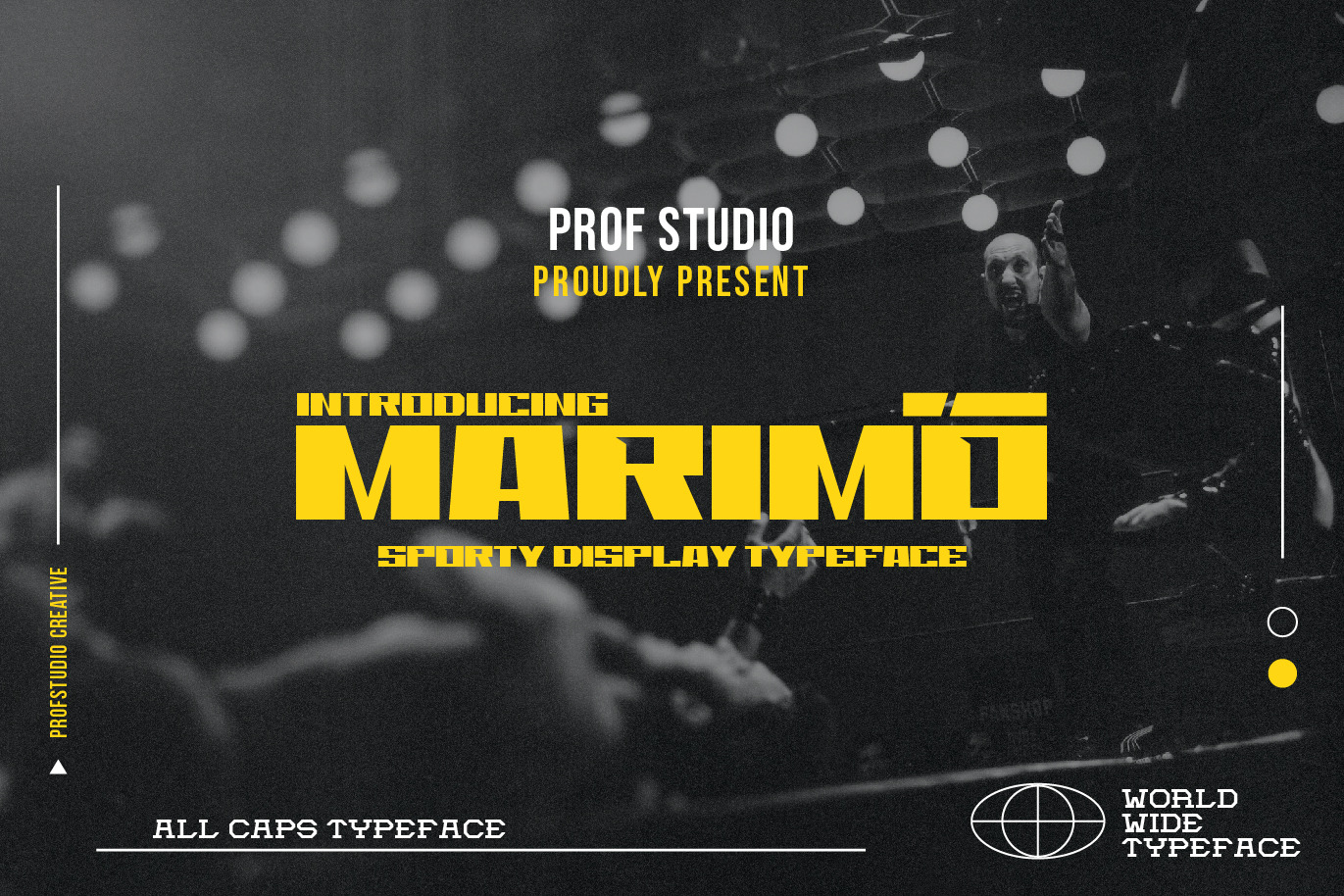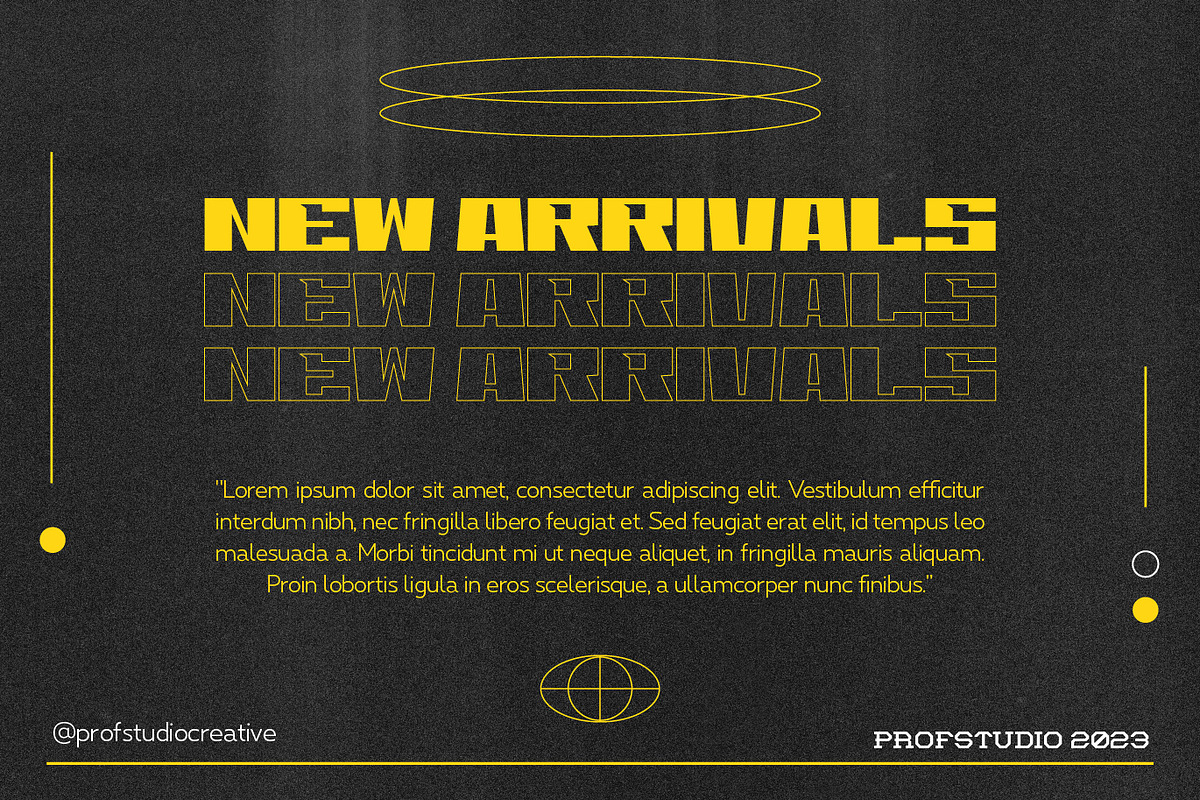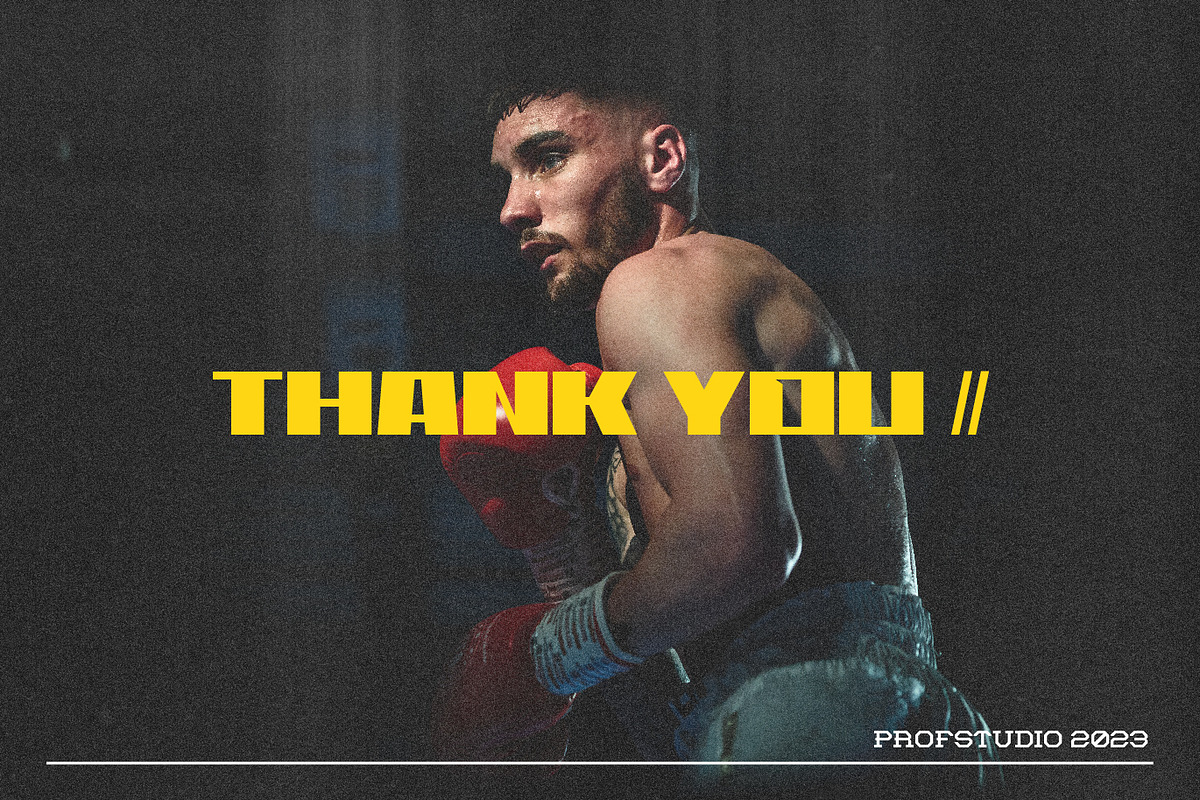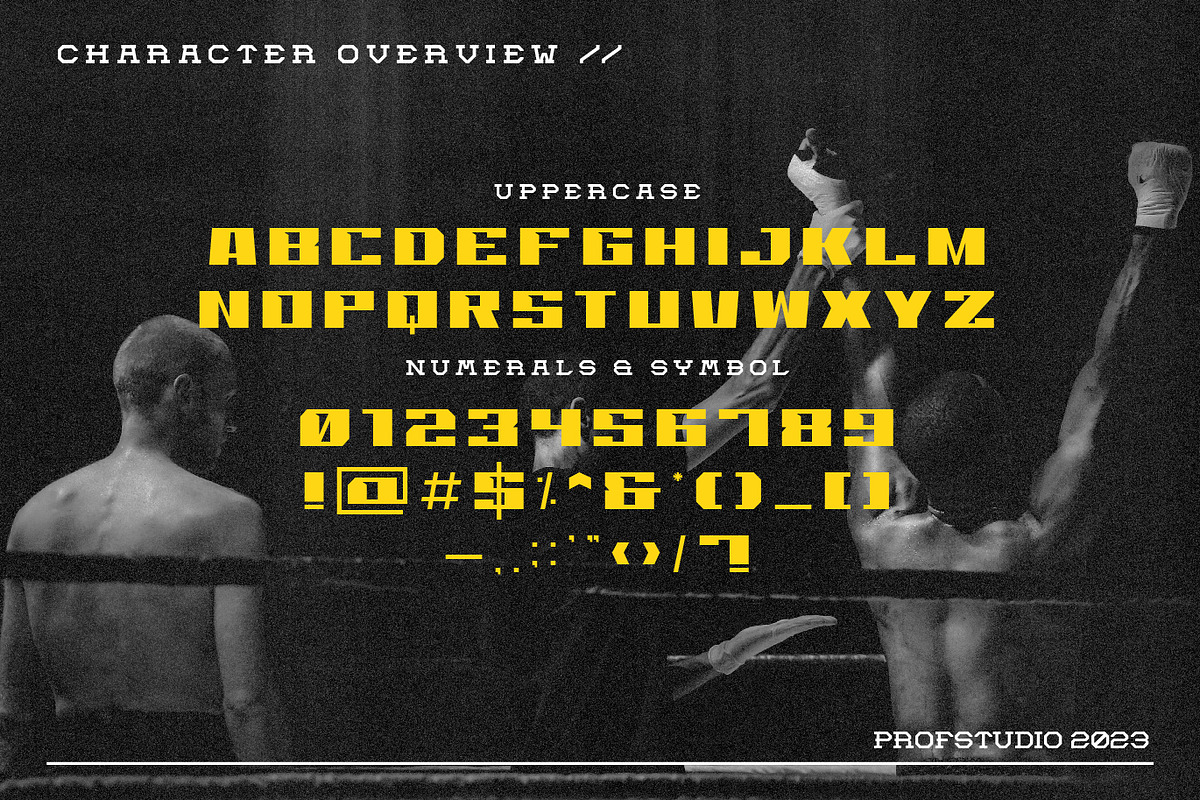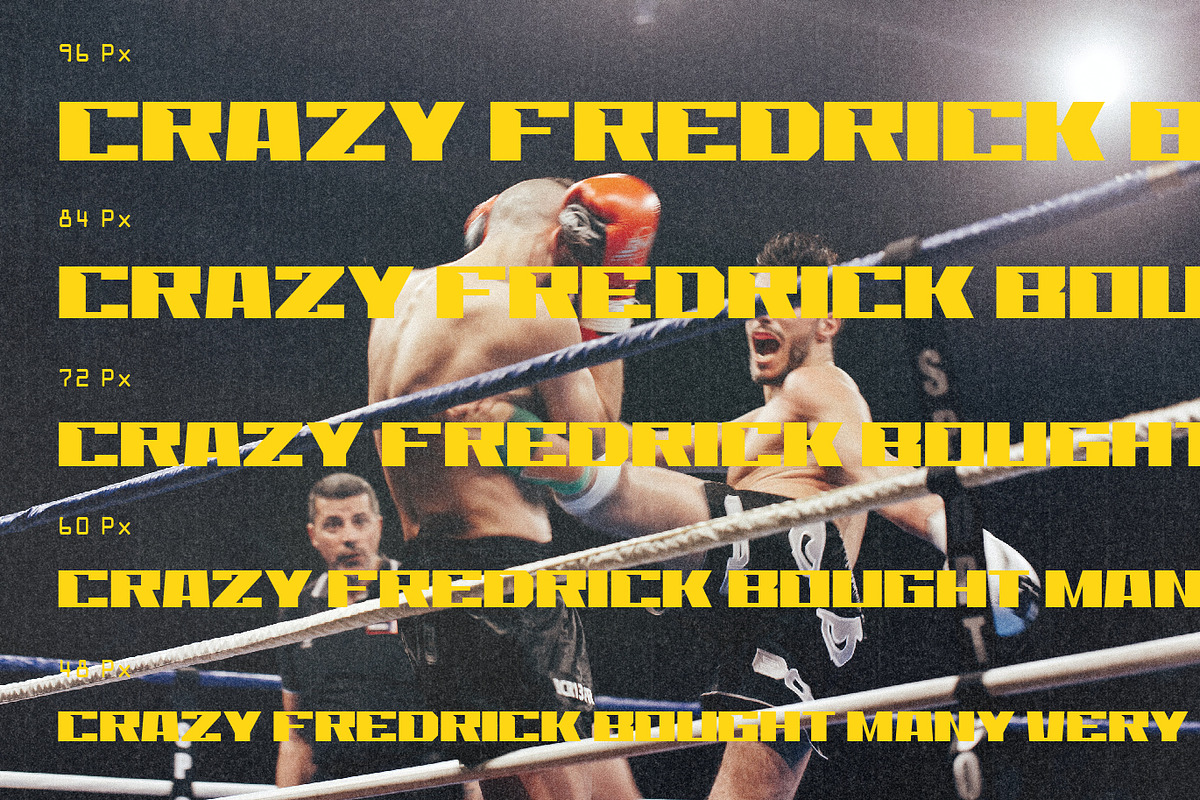
Marimo - Sports Display Typeface
Marimo - Sporty Display Font which can be interpreted professional. we keep this font looks modern, Bold, Sporty, readable, stylish, catchy and easy to use.
Marimo - is the great choice for event design ,magazine, brand design, Poster Design, and many other design project. Marimo here to make your work to high level!!!